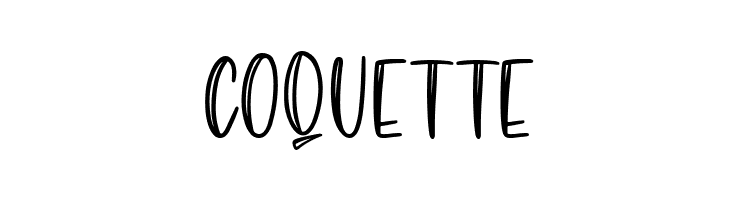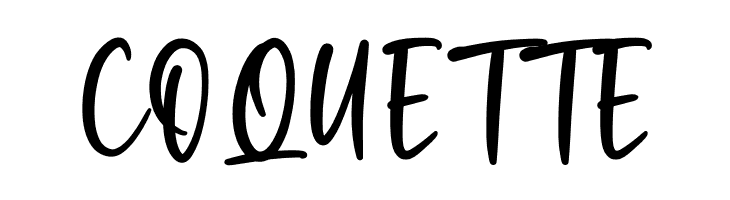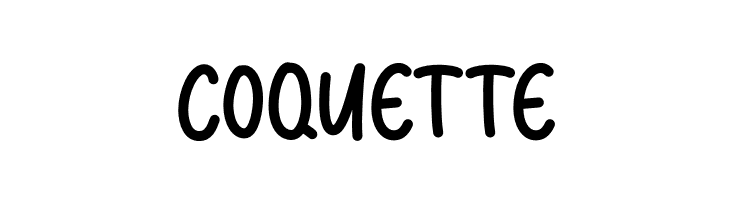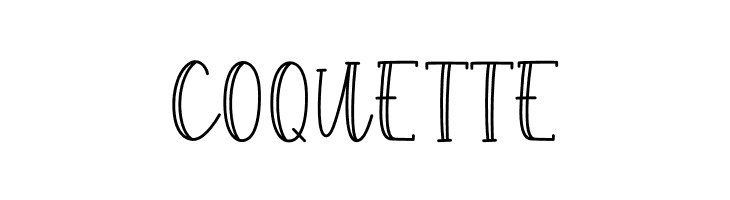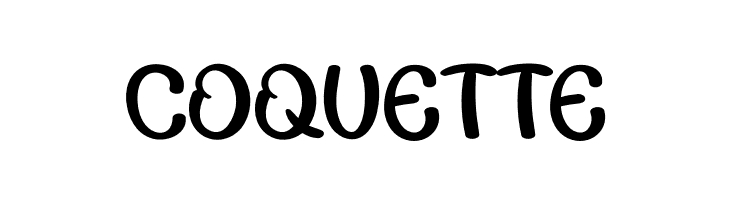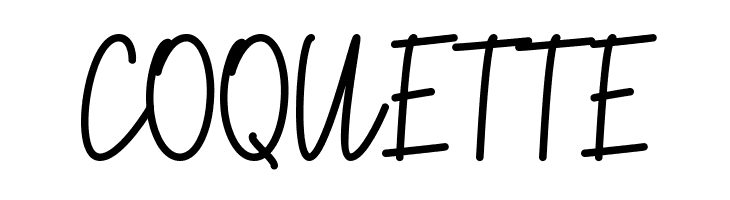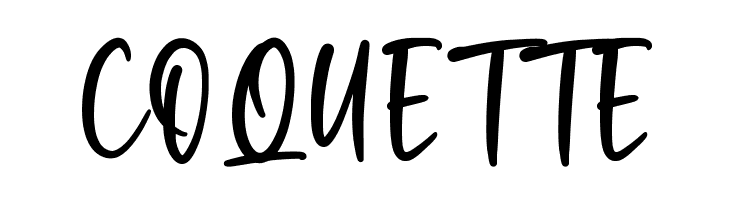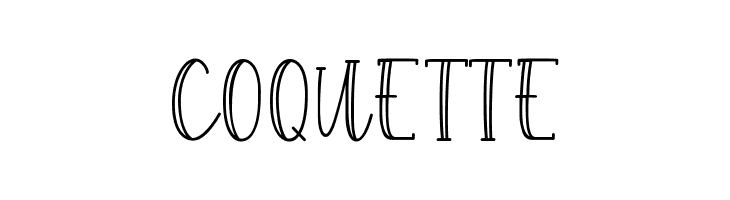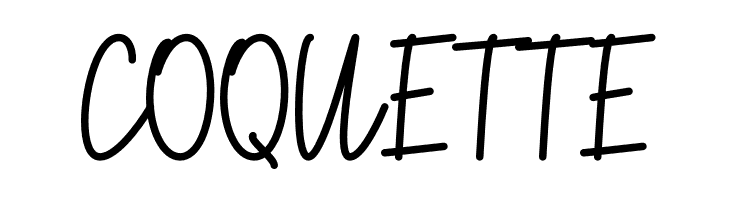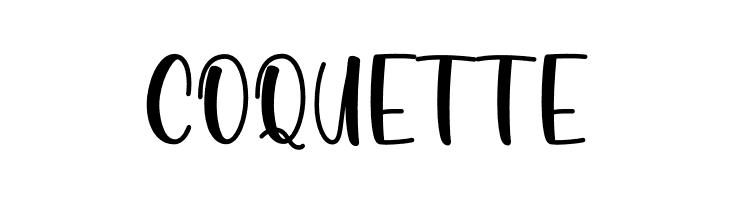
A bold, cursive script font with a playful, handwritten style.
A playful, flowing script font with a handwritten style.
A playful, hand-drawn font with rounded edges and a whimsical style.
Autumn-themed dingbat font with bold seasonal silhouettes.
A playful, whimsical handwritten font with elegant, flowing letters.
A whimsical, handwritten font with playful curves and artistic flair.
A playful, handwritten-style font with elegant loops and consistent strokes.
A playful, hand-drawn font with a casual and friendly vibe.
A playful and casual handwritten font with fluid strokes and a friendly appearance.
A playful, handwritten font with smooth, flowing lines and a casual style.
A playful, bold handwritten font with rounded, consistent strokes.
A playful, bold handwritten font with rounded edges and a casual style.
A playful, hand-drawn font with rounded, bold characters and a whimsical style.
A playful, whimsical script font with flowing, interconnected letters.
A playful, handwritten font with fluid strokes and a casual, energetic style.
A playful, handwritten font with flowing, connected letterforms and a casual, whimsical style.
A bold, playful font with a quirky, hand-drawn style.
A bold, decorative font with a cracked glass texture, perfect for impactful designs.
A playful, handwritten font with bold, irregular strokes and a casual vibe.
A playful, handwritten font with bold, flowing strokes and a dynamic slant.
Playful handwritten font with a whimsical style.
A graceful, cursive script font with a natural handwriting style.
A graceful and elegant script font with flowing cursive letterforms.
A lively and expressive handwritten font with fluid, dynamic strokes.
A lively and expressive handwritten font with dynamic strokes.
A bold, decorative font with sharp, angular designs and intricate detailing.
An elegant, cursive font with a calligraphic style and fluid character connections.
A classic serif font with elegant thin strokes and pronounced serifs.
A refined, light, italic serif font with elegant slanted characters.
A classic serif font with sharp serifs and moderate contrast, blending traditional and modern elements.
A classic italic serif font with elegant, flowing lines and moderate contrast.
An elegant serif font with a classic italic slant and moderate stroke contrast.
A bold serif font with sharp serifs and strong vertical stress.
A bold, italic serif font with strong strokes and pronounced serifs.